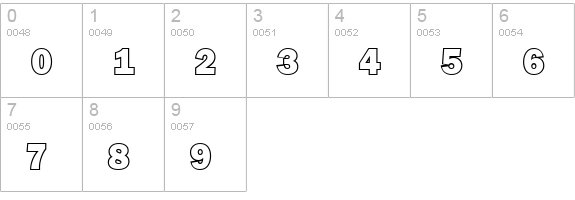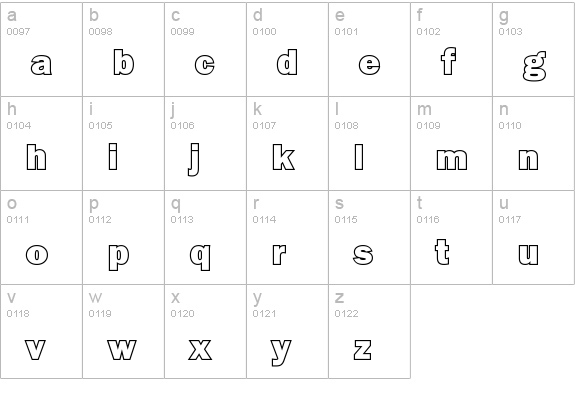
Introducing the edgy and stylish Goffik-Outline font! With its bold lines and modern aesthetic, this font is perfect for making a statement in your designs. Whether you're working on posters, logos, or social media graphics, Goffik-Outline is sure to grab attention. Best of all, Goffik-Outline is completely free to download at FontsMarket.com. Yes, you read that right - this unique font can be yours at no cost! So don't hesitate to add a touch of rebellious flair to your projects with Goffik-Outline. Download it today and unleash your creativity!